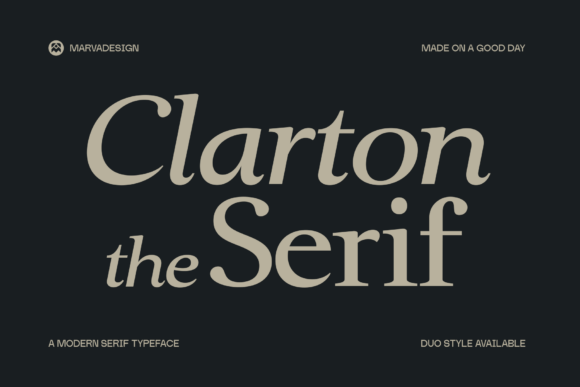
Introducing Clarton Font: Elevate Your Design with Elegance and Sophistication
In the world of typography, fonts play a crucial role in conveying the tone and personality of a brand or design. Among the numerous typefaces available, Clarton Serif stands out as a modern serif font that embodies elegance, sophistication, and contemporary flair. This stunning typeface is perfect for luxury branding, editorial layouts, magazine headlines, and any design that seeks a timeless aesthetic.
Key Features of Clarton Serif
- High Contrast Stroke**: Clarton Serif features a high contrast between thick and thin strokes, creating a visually appealing and dynamic effect.
- Graceful Curves**: The font boasts elegant curves that add a touch of sophistication to any design.
- Refined Serifs**: The sharp yet refined serifs of Clarton Serif make it perfect for designs that demand a strong visual presence.
- Natural Italic Style**: The font includes a natural italic style, adding a sense of motion and expressive rhythm to the text.
Ideal Design Applications for Clarton Serif
Clarton Serif is an incredibly versatile font that can be used in various design applications, including:
- Luxury Branding: The font’s elegant and sophisticated design makes it perfect for luxury brands looking to establish a strong visual identity.
- Editorial Layouts: Clarton Serif is ideal for editorial layouts, such as magazine headlines, articles, and advertisements.
- Magazine Headlines: The font’s bold and refined design makes it perfect for grabbing attention in magazine headlines.
- Display Purposes: Clarton Serif is well-suited for display purposes, such as billboards, posters, and signage.
Typographic Characteristics of Clarton Serif
Clarton Serif boasts a range of typographic characteristics that make it a highly effective font for various design applications. Some of its key features include:
- Well-Balanced Uppercase and Lowercase Characters: The font features well-balanced uppercase and lowercase characters, ensuring that the text is easy to read and visually appealing.
- PUA Encoding: Clarton Serif supports PUA encoding, providing seamless access to its full library of stylistic features.
Stylistic Features of Clarton Serif
Clarton Serif offers a range of stylistic features that make it a highly versatile font. Some of its key features include:
- Stylistic Alternates: The font features stylistic alternates that allow designers to add a touch of elegance and sophistication to their designs.
- Ligatures: Clarton Serif includes ligatures that help to create a more natural and fluid reading experience.
In conclusion, Clarton Serif is a stunning modern serif font that embodies elegance, sophistication, and contemporary flair. Its high contrast stroke, graceful curves, and refined serifs make it perfect for luxury branding, editorial layouts, magazine headlines, and any design that seeks a timeless aesthetic. With its well-balanced uppercase and lowercase characters, natural italic style, and support for PUA encoding, Clarton Serif is an excellent choice for designers looking to elevate their designs.